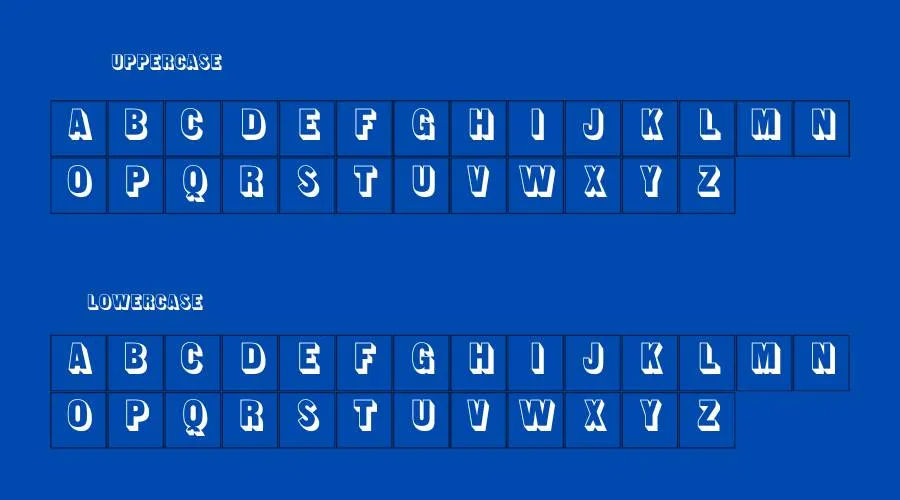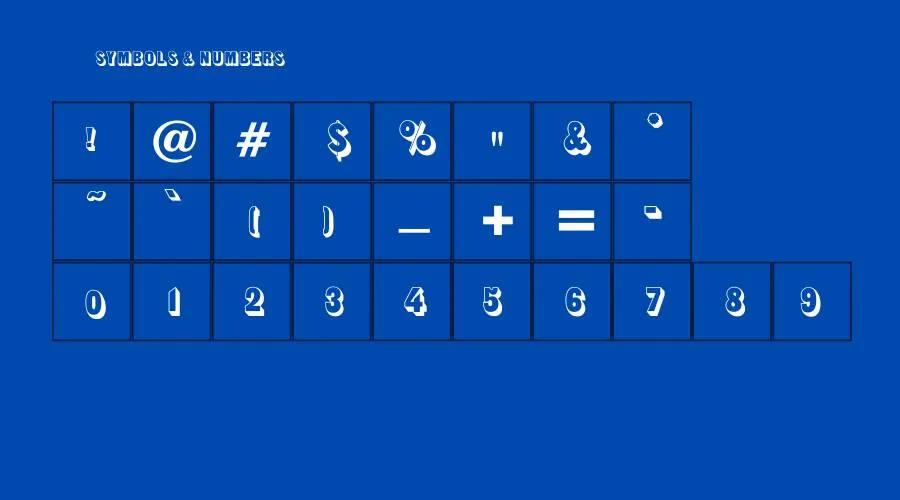
Sanderson Shaded Font
About Sanderson Shaded Font
Today we discuss another fancy typeface known as Sanderson Shaded Font. This stunning texture has been designed by a famous British typographical designer known as the name of Sanserson. This typeface is under the category of the fancy texture family with a unique and stylish texture look.
This attractive typeface has a shaded and sophisticated border that has seen a light black color. It looks very perfect and the designer loves this style. You may utilize this font with fz wacky 20 font and make elegant projects.
It has an online generator tool, in which you can change all your simple textures into modern and attractive shapes. The Sanderson Shaded typeface was inspired by traditional elements with a modern look. It has two different types of weights, light, and medium, both can be used for different methods.
The Sanderson Shaded Font is a unique typeface that has been designed with thoughtfulness and care. This font looks amazing and is perfect to use in display type of design or in large posters. This font family is also perfect for logos, brochures, and for designing any type of design.
This typeface is versatile and able to be used for many different kinds of designs and applications. You may also utilize this font for logos, body text, branding, social media posts, and many other projects. It has a wide range of possible uses including printings, headings, titles, and many others.
Name Sanderson Shaded Font
Designer Sanserson
Style Fancy
Futura Light Font is a perfect pairing font with Sanderson Shaded font.
What is Sanderson Shaded Font?
This typeface is a fancy typeface that has been designed by British typographical designer Sanserson. The font has two different weights, light and medium.
What font goes well with Sanderson Shaded Font?
This is a fancy typeface so it goes well with the asessor font and the Londrina Solid Font.
What are the perfect uses of the Sanderson Shaded typeface?
This typeface is able to be used for many different kinds of Projects. It has a wide range of possible uses including printings, logos, posters, banners, and many other projects.